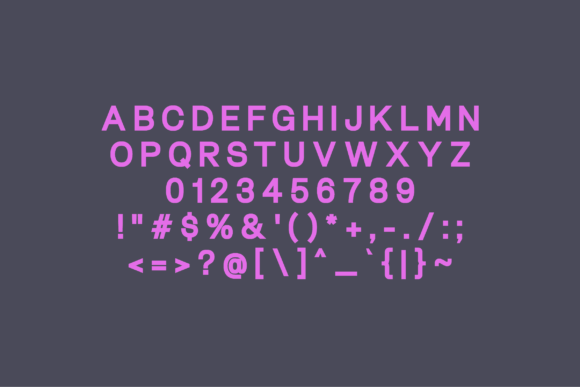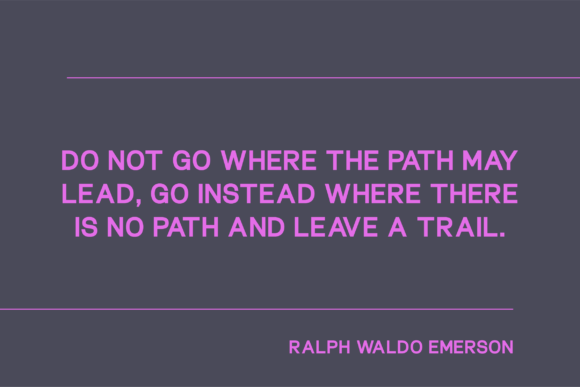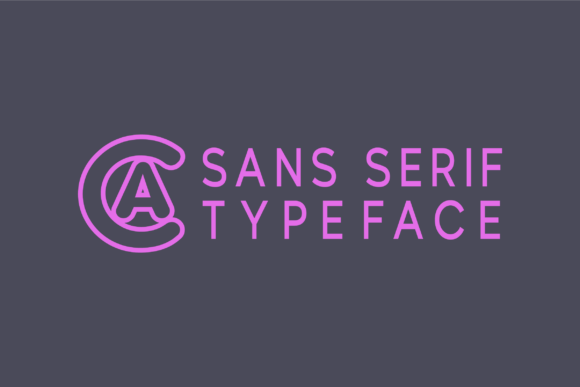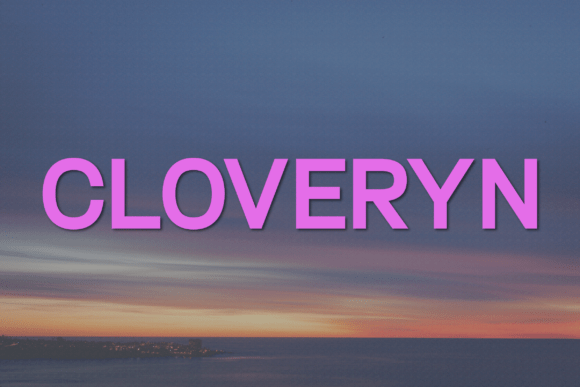
Introducing Cloveryn Font: Elevate Your Designs with Modern Elegance
In the world of typography, a font can make all the difference in the aesthetic and effectiveness of a design. For designers, crafters, and anyone looking to add a touch of sophistication to their projects, Cloveryn Font is an exceptional choice. This modern, classy sans serif typeface is not only visually appealing but also incredibly versatile, making it perfect for a wide range of applications.
What is Cloveryn Font?
Cloveryn Font is a sans serif typeface that boasts a clean and contemporary look. It features upper characters, numbers 0-9, and a comprehensive range of punctuation and symbols. This extensive character set ensures that you have everything you need to create cohesive and professional-looking designs. Whether you’re working on logos, weddings, invitations, quotes, advertisements, print materials, magazines, or more, Cloveryn Font is up to the task.
Key Features of Cloveryn Font
- Modern and Classy Design: Cloveryn Font’s sans serif design gives it a sleek and modern appearance that’s perfect for projects that require a touch of elegance.
- Versatility: From logos and branding to wedding invitations and magazine layouts, Cloveryn Font’s versatility knows no bounds.
- Comprehensive Character Set: With upper characters, numbers, punctuation, and symbols, you have all the tools you need to create detailed and nuanced designs.
Applications of Cloveryn Font
The applications of Cloveryn Font are vast and varied. Here are some of the most popular uses:
- Logos and Branding: Create a lasting impression with a logo that exudes modernity and class.
- Weddings and Invitations: Add a touch of elegance to your wedding invitations, save-the-dates, and other stationery.
- Quotes and Typography: Use Cloveryn Font to highlight inspiring quotes, phrases, and statements in your designs.
- Advertisements: Stand out in the crowded world of advertising with bold and eye-catching text.
- Print and Magazines: Elevate your print materials, including magazines, brochures, and flyers, with a sophisticated font.
Why Choose Cloveryn Font?
With so many fonts available, why choose Cloveryn Font? The answer lies in its perfect blend of modernity, elegance, and versatility. Here are a few reasons why Cloveryn Font stands out:
- Unique Aesthetic: Cloveryn Font offers a unique aesthetic that’s both contemporary and timeless.
- High Readability: The clean design of Cloveryn Font ensures high readability, making it perfect for both digital and print applications.
Cloveryn Font is a powerful tool for designers and crafters looking to elevate their projects with a modern, classy sans serif typeface. Its versatility, comprehensive character set, and ease of use make it an excellent choice for a wide range of applications. Whether you’re creating logos, wedding invitations, or print materials, Cloveryn Font is sure to make a lasting impression. So why wait? Download Cloveryn Font today and discover the difference it can make in your designs.